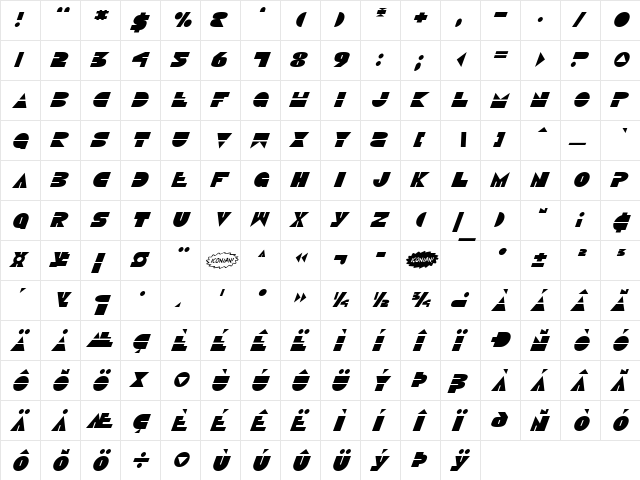
Disco Duck Italic Italic
Design Context for Disco Duck Italic Typeface
Disco Duck Italic is a composed and adaptable typeface that performs quietly and consistently across a wide range of design contexts. The dynamic lean of this cut emphasises speed and emphasis in any layout.
Pro Tip: Use Disco Duck Italic for emphasis, pull quotes, and subheadings where its slanted energy can add rhythm to the layout.